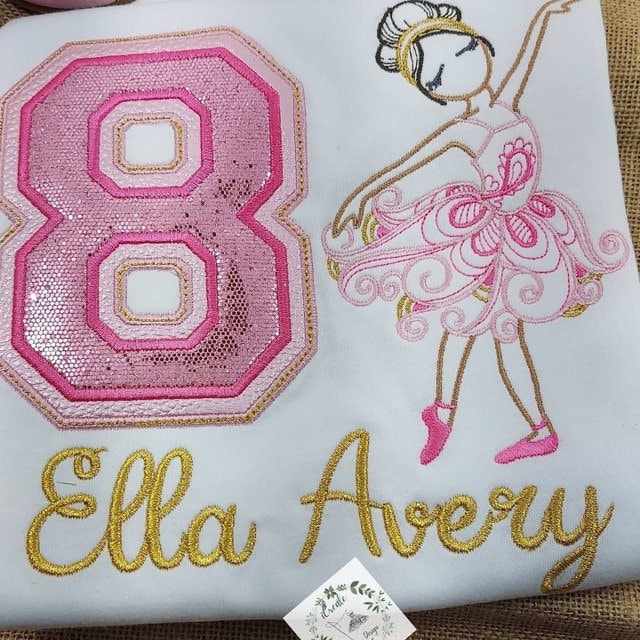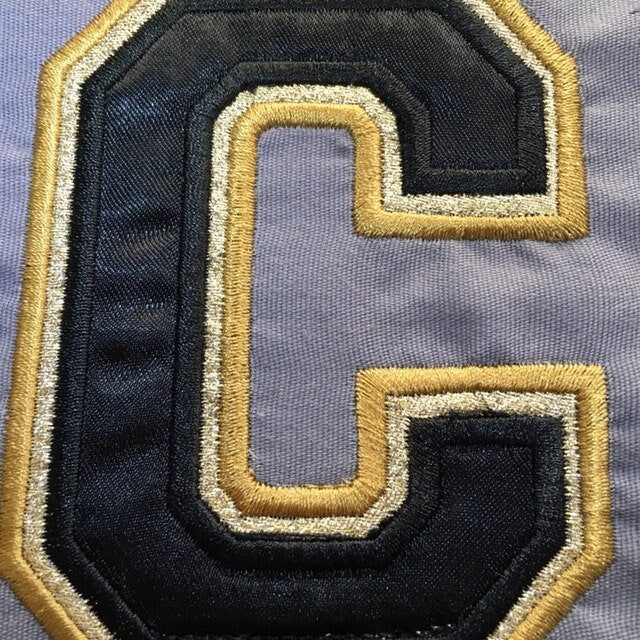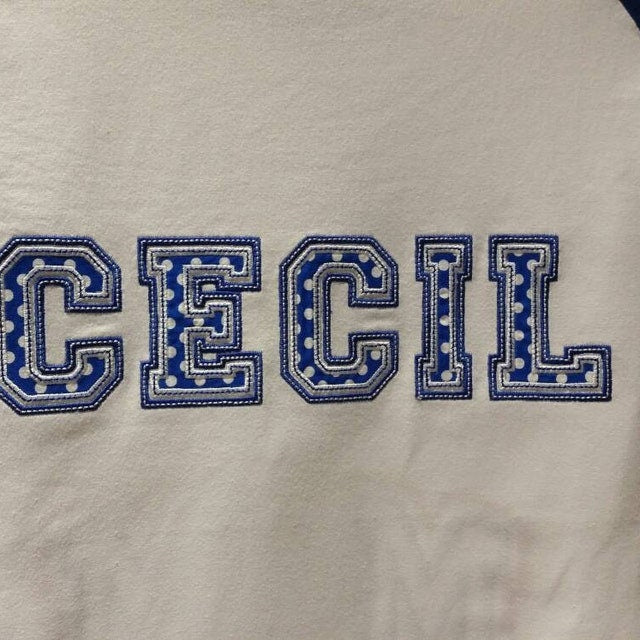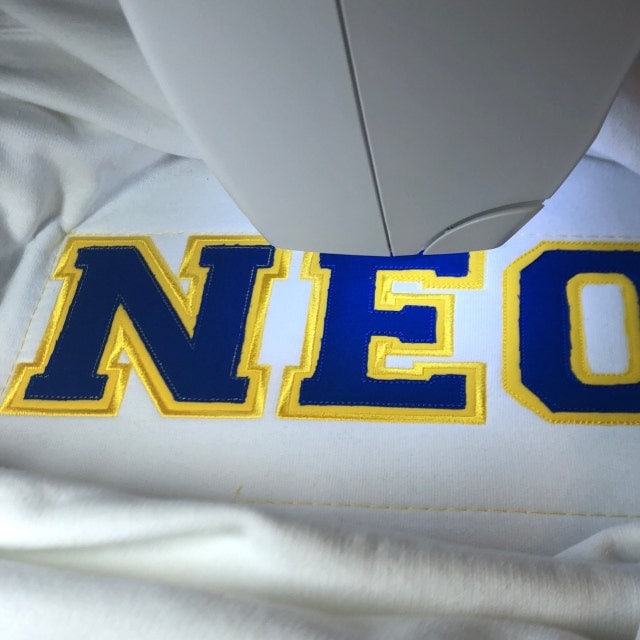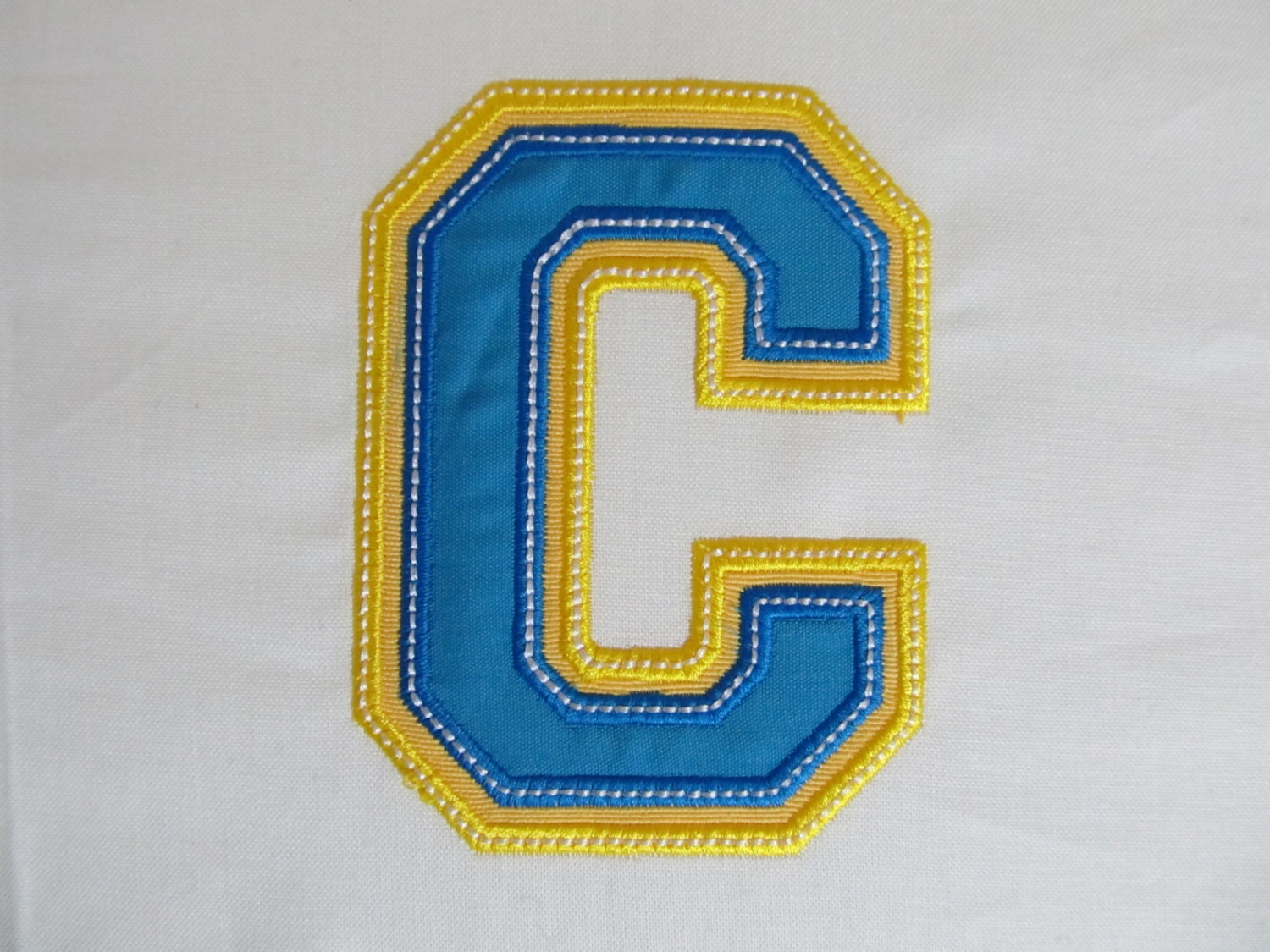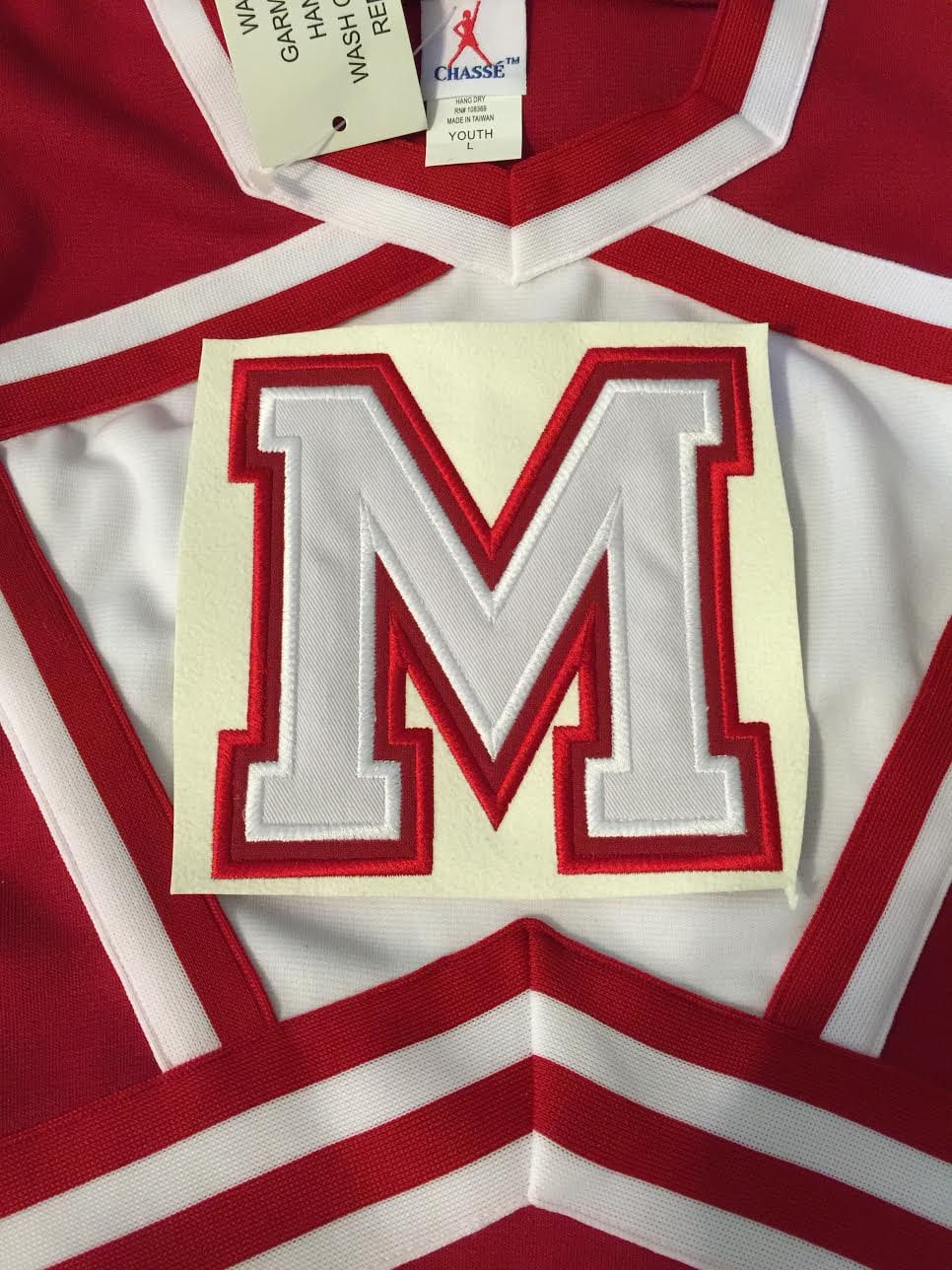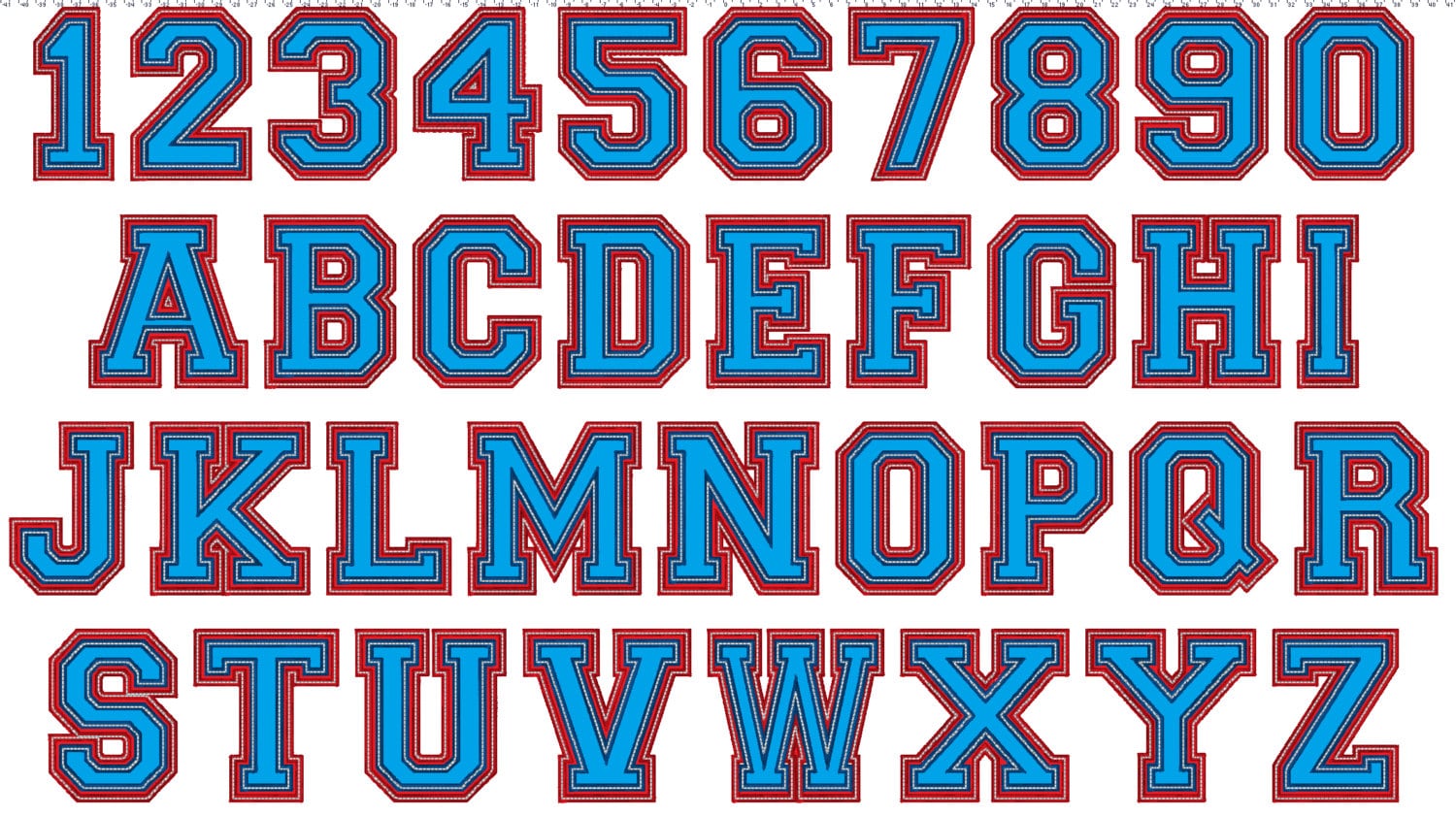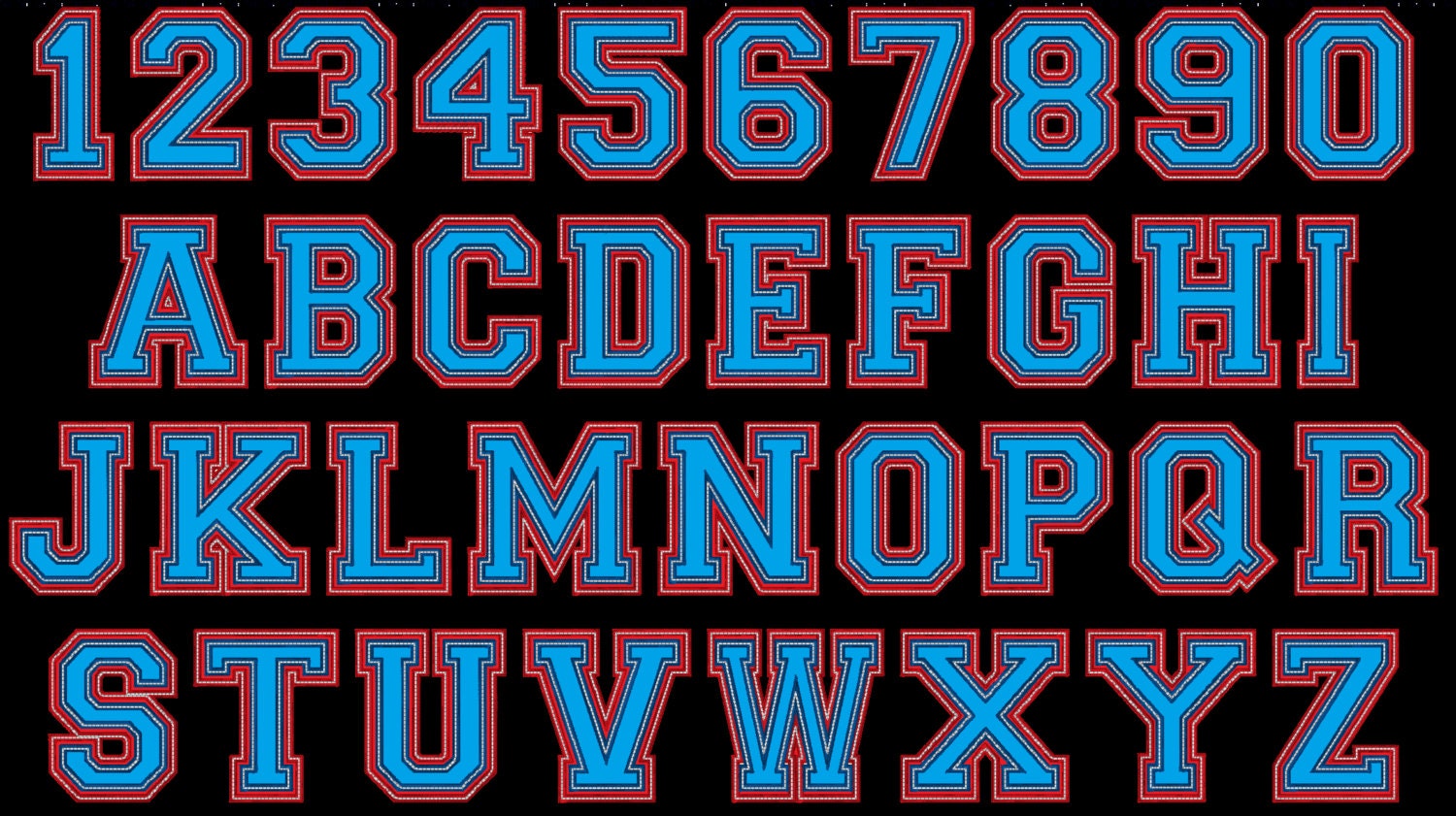
This design stitched out perfectly!
Great design used it on grandson jacket
just what I needed, stitched out perfectly
The satin stitch on this font is perfect. I even used it with the sequin fabric for my applique and it was so good.
Alles Bestens gelaufen. Gerne wieder.
Great design that was embroidered very nicely
Love the design, can't wait to make it
Stitched out perfectly thank you!
Excellent design, thanks so much!
stitched out perfect, looks amazing.
Love it, thank you so much!
Stitched out great! Love this design. Thank you for a great design.
Great product. Stitched out perfect.
I have not stitched this yet
The file is an amazing.I highly recommend this company for this file. Stitch was beautiful
Perfect font for my project. Clean, easy to stitch, and looks great on every project.
The font I was looking for
Can't wait to use this.
Sehr schöne Buchstaben super Effekte!
Very nice digitizing, stitched out nicely
This stitched out great! I was able to cover up an old peeled off design
This font is absolutely beautiful when stitched out
Excellent file, the best of all the fonts so far
It was perfect. 10/10 recommend
Stitched great. Font it good
Proeflapje zag er mooi uit
I did a test stitch out of the letter B and it stitched out well. My only problem is that there are some jump stitches that interfere with the stitch out that the digitizer should have trimmed in the software. Other than that, I am pleased with this file.
Loved this, I have not used it yet, but know it will be nice
Love this font! It stitched out beautifully and the seller was great to work with. The YouTube video was super helpful too!
nice nice nice
i am very pleased with this design
tolle Dateien wie immer alles super und lassen sich prima und sauber sticken
exactly what I was lookin for.
I love this design! Thank you!